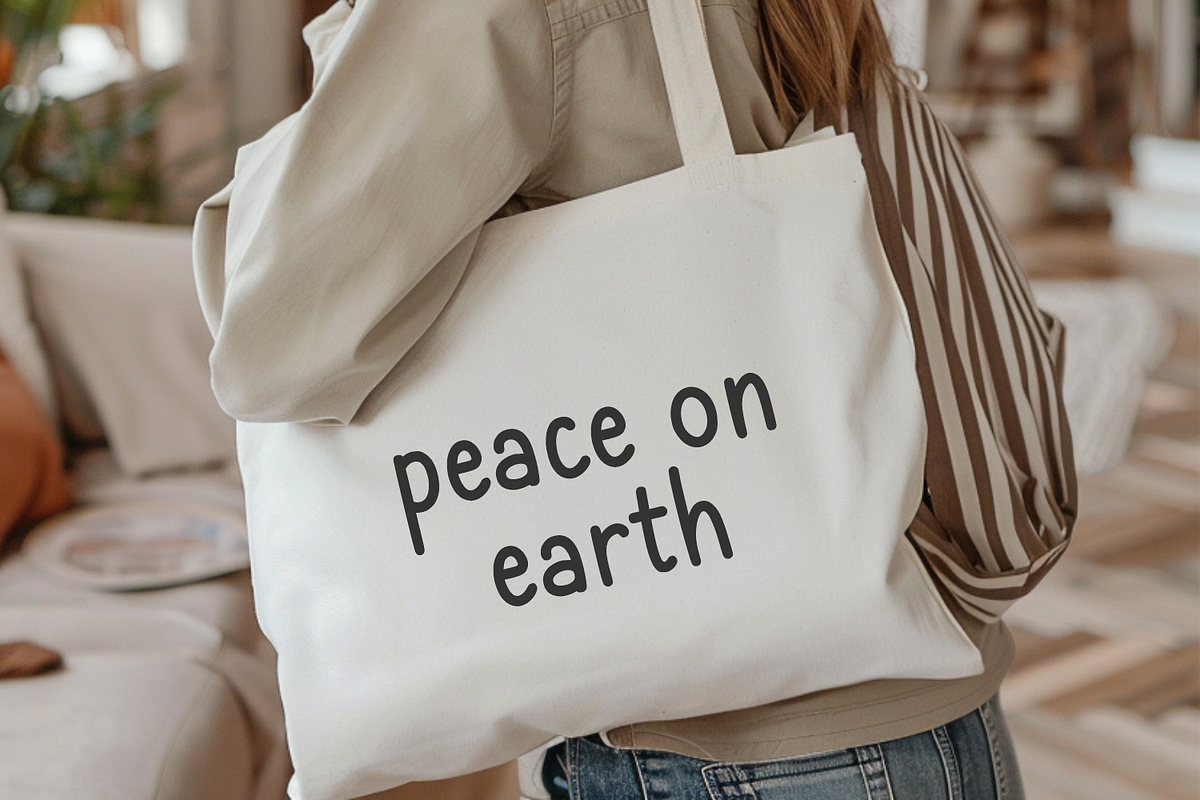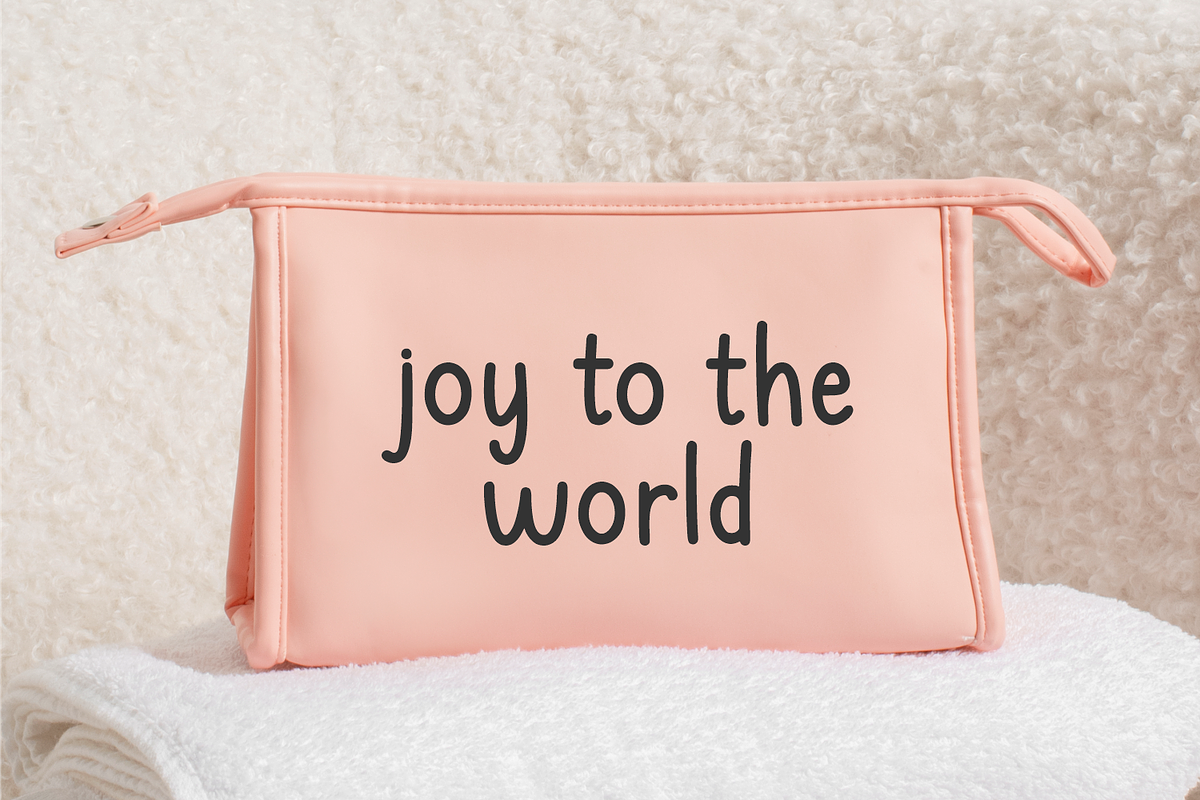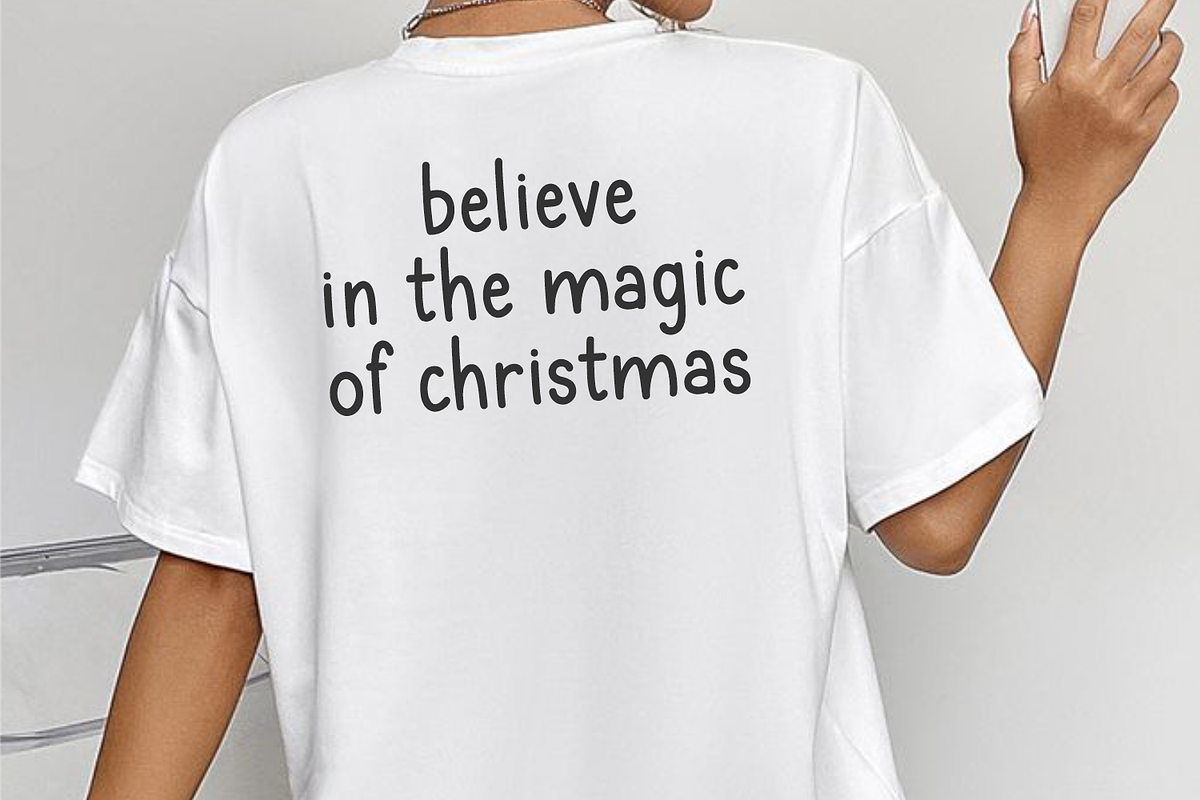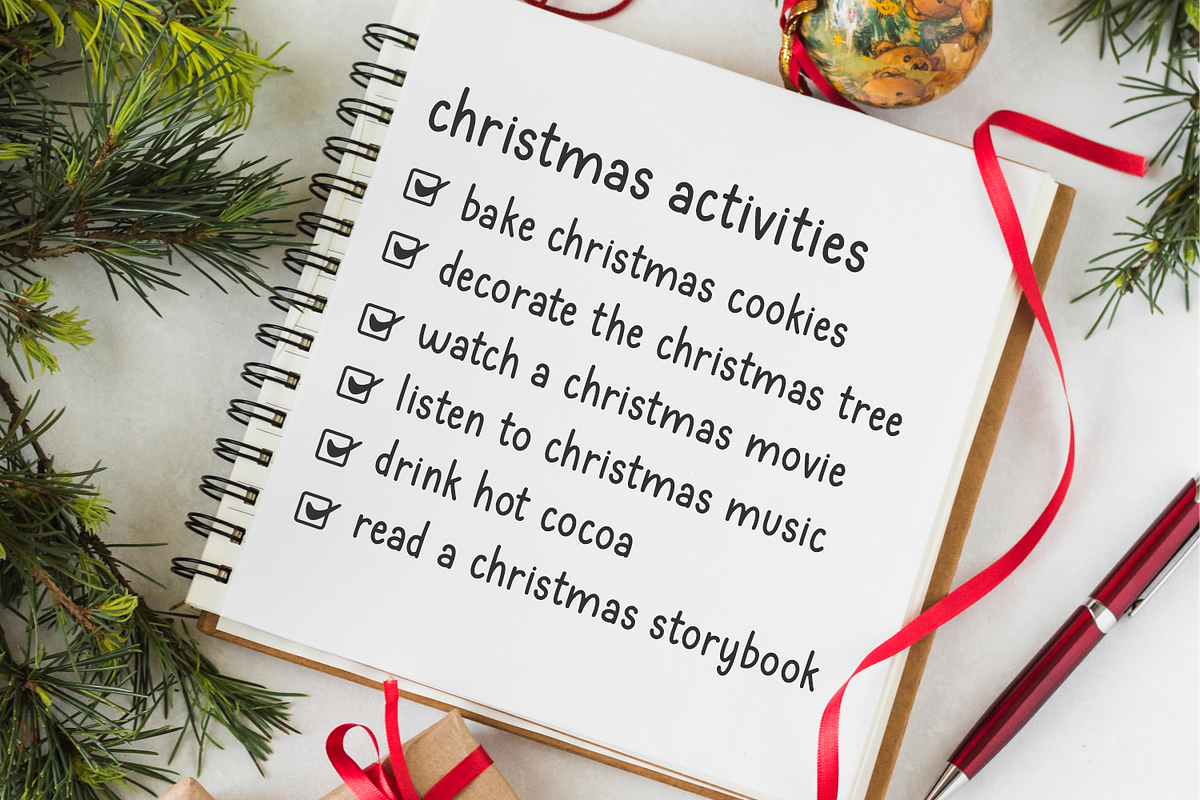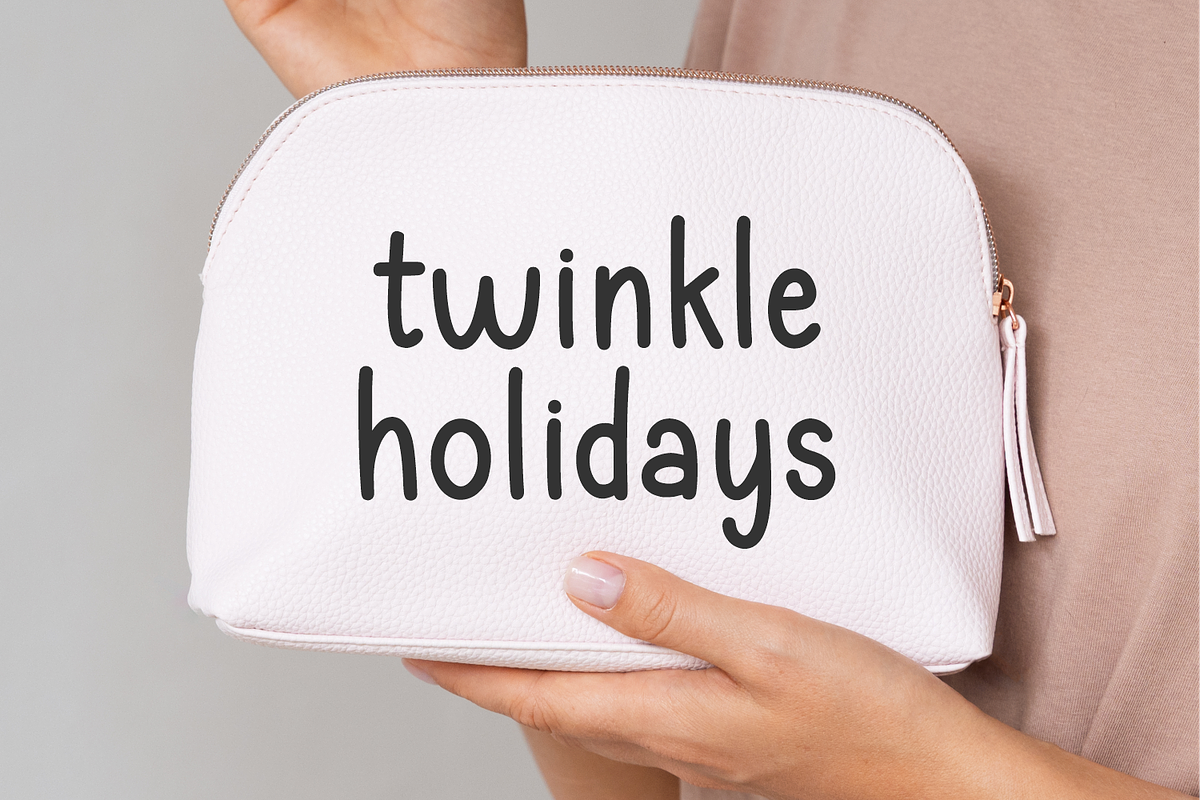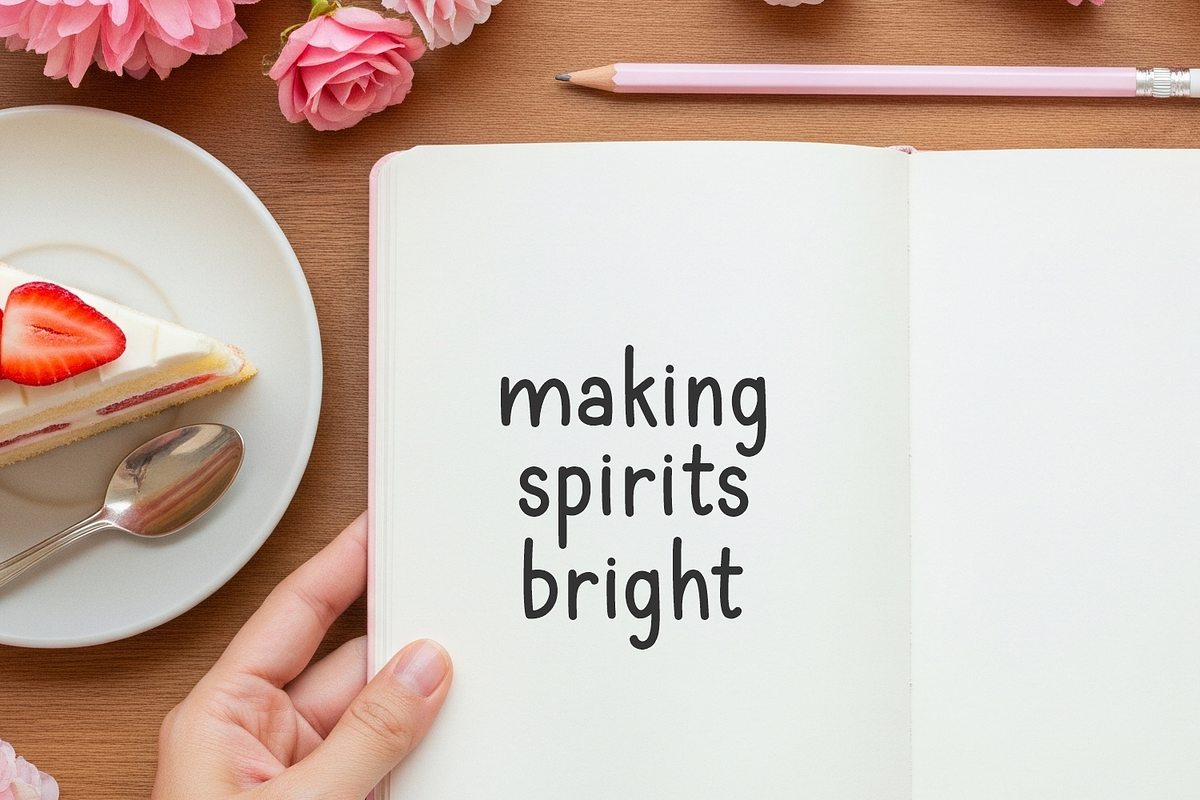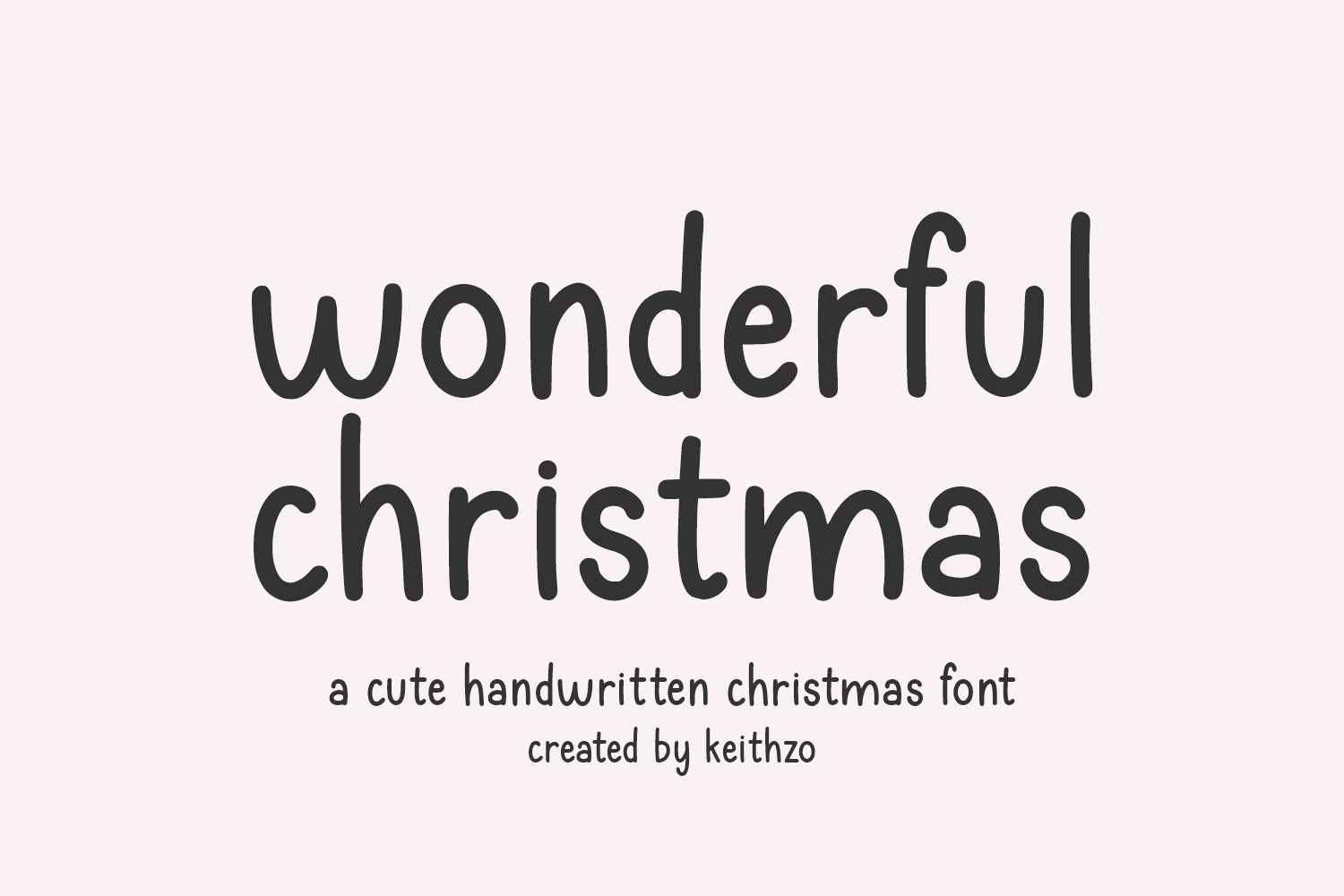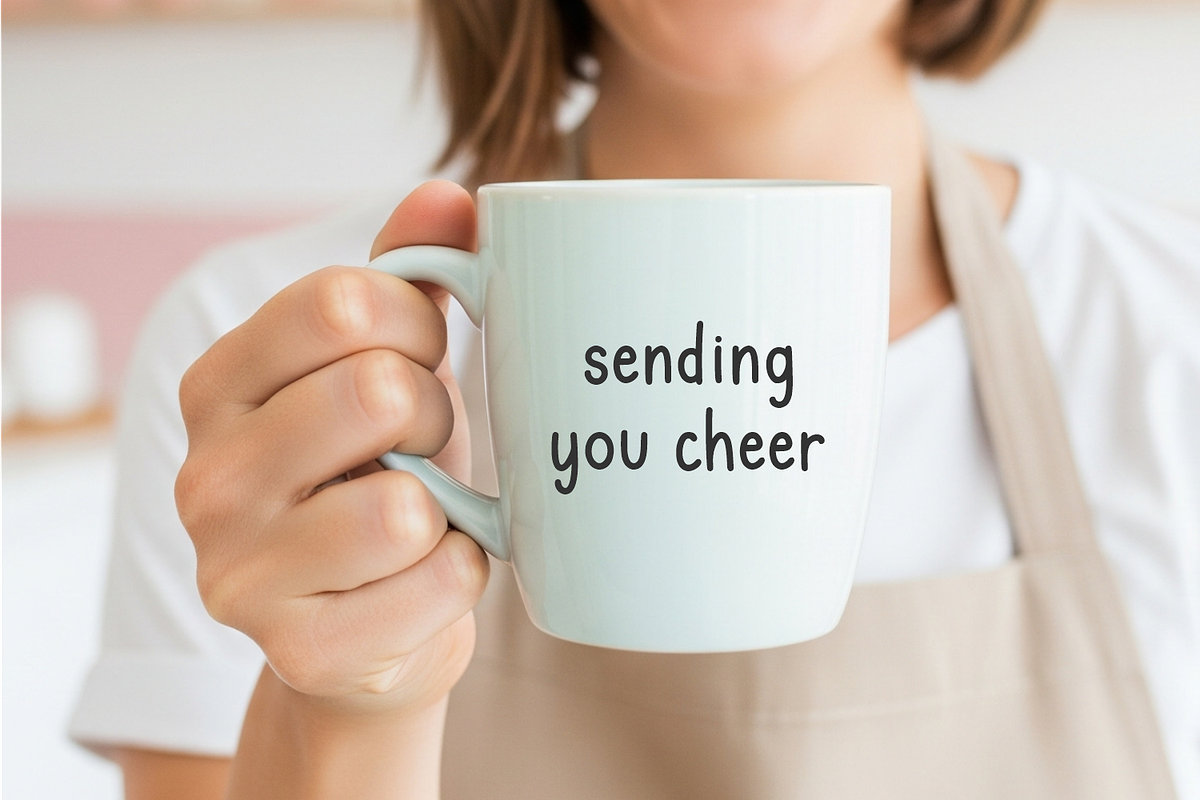
Wonderful Christmas - Cute Font
Presenting Wonderful Christmas – a truly enchanting handwritten display font, crafted to sprinkle a pinch of holiday merriment and engaging charisma into your festive designs. Each rounded, playful letter sparkles with a radiant, laid-back aura, lending unparalleled versatility and legibility to this delightful font. Capturing the sincerity and warmth of genuine handwriting, the casually neat script endows your works with an authentic, approachable charm. Ideal for Christmas and Winter endeavors, allow Wonderful Christmas to seamlessly weave holiday sparkle and snugness into your projects, making every creation a magical masterpiece!